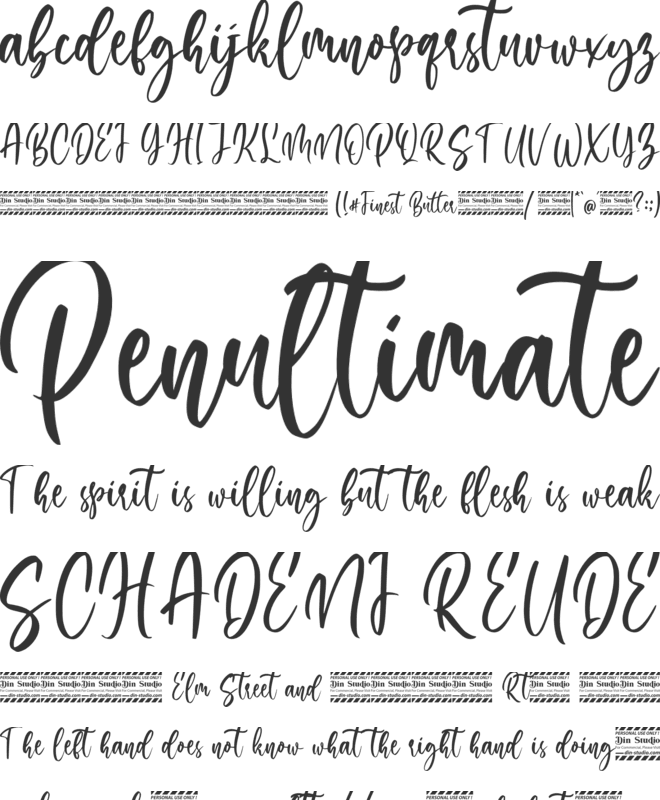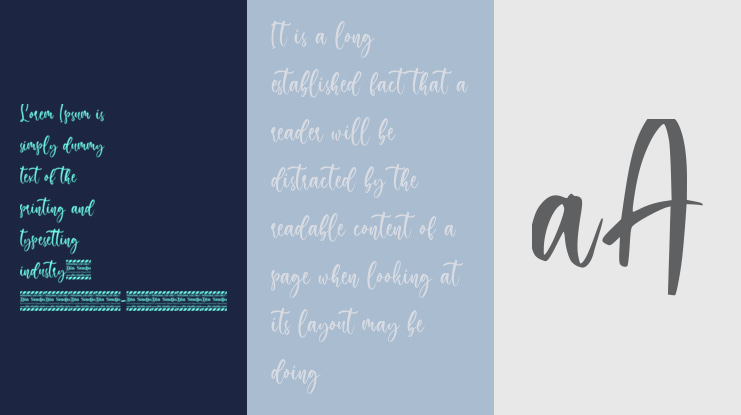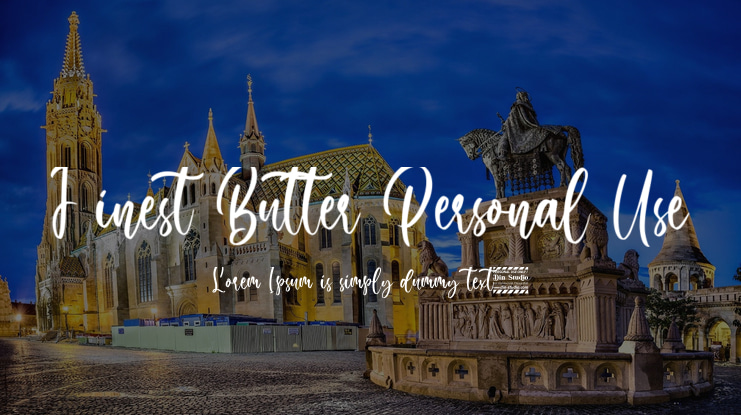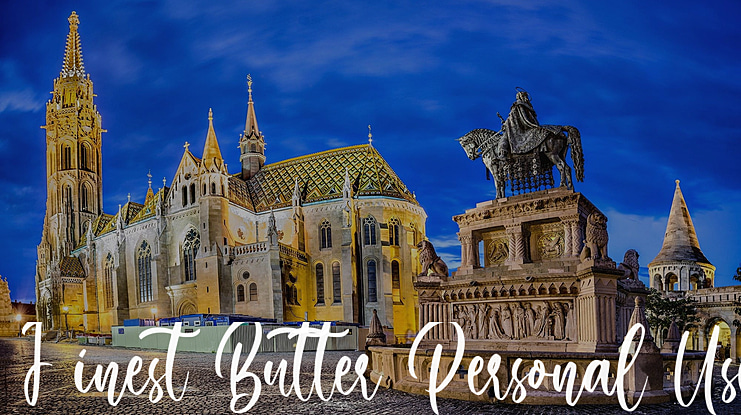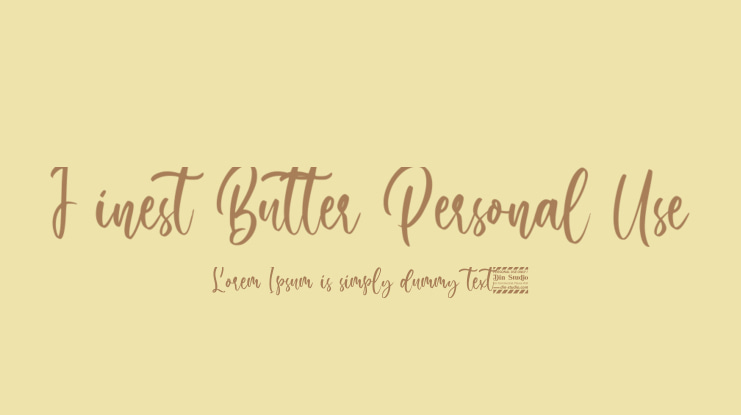
Finest Butter Personal Use Font
Finest Butter is a modern script font. Made for any professional project branding. It is the best for logos, branding and of quotes. Every letter has a unique and beautiful touch.